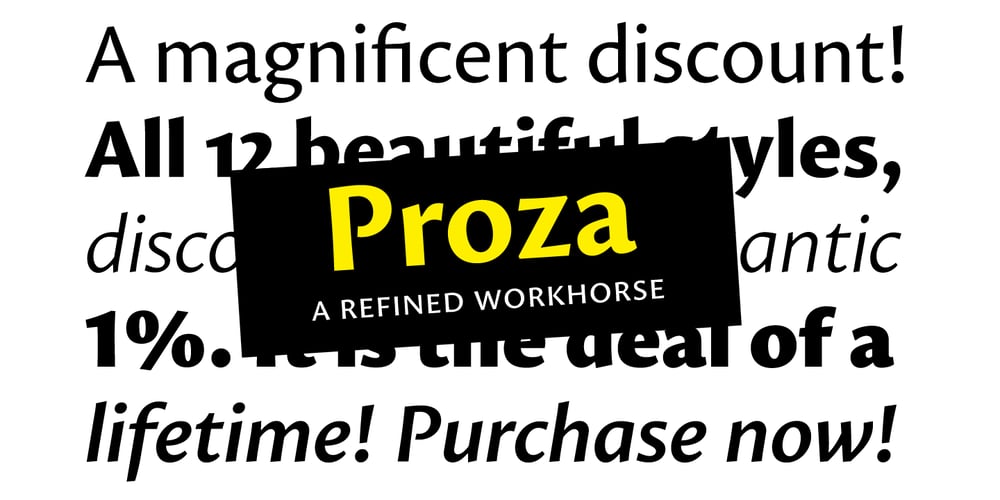
Proza
Proza Font Family was designed by Jasper de Waard and published by Bureau Roffa. Proza contains 12 styles and family package options. Proza is a humanist sans serif typefamily, consisting of 12 styles (6 weights + italics), with roots in serif designs from the Renaissance, such as Garamond and Jenson. Proza was made to function well at a large range of sizes, from the smallest of text sizes, to gigantic posters, making it a highly versatile type family. Its large character set (support for 100+ languages) and opentype features do all the heavy lifting for you, while its elegance and refined details ensure to deliver a punch of class to your designs. A detailed article about the development and design of Proza on ilovetypography.com.